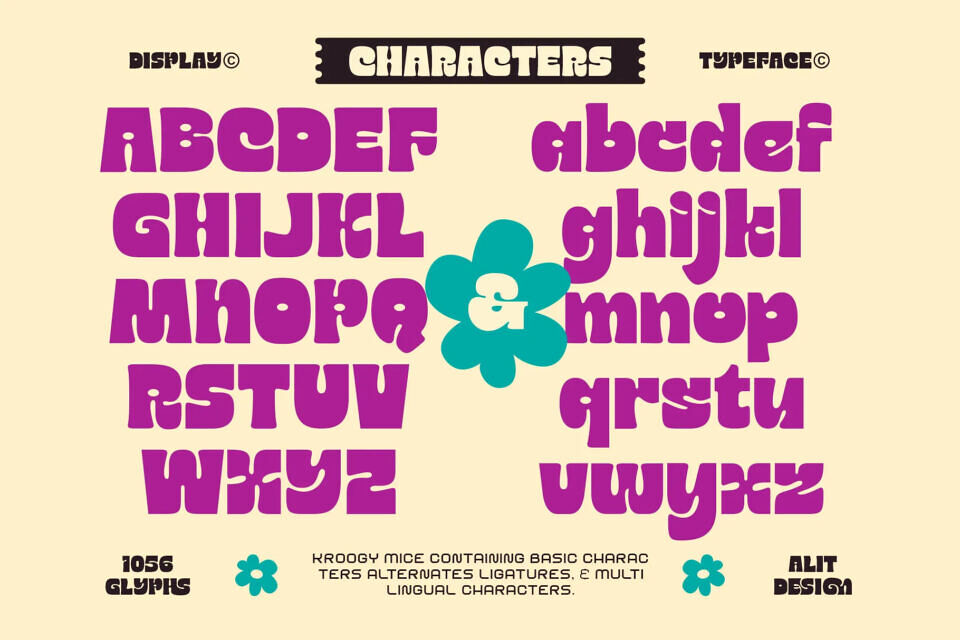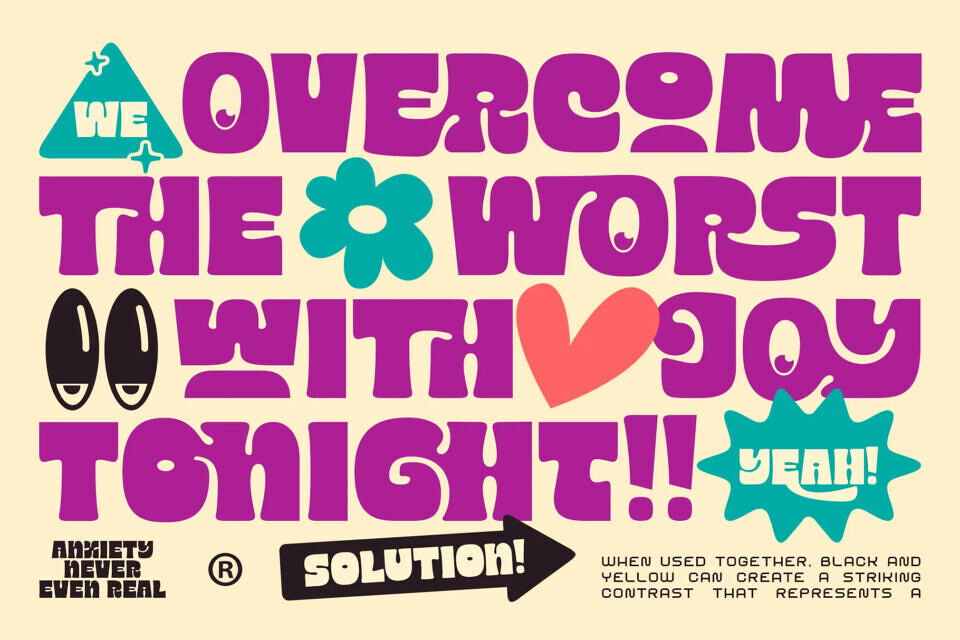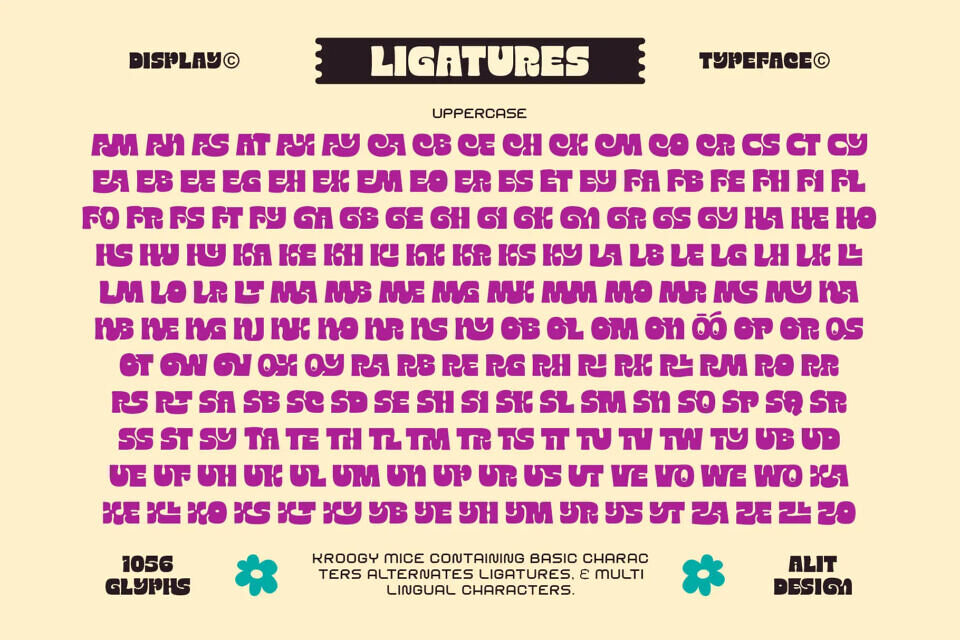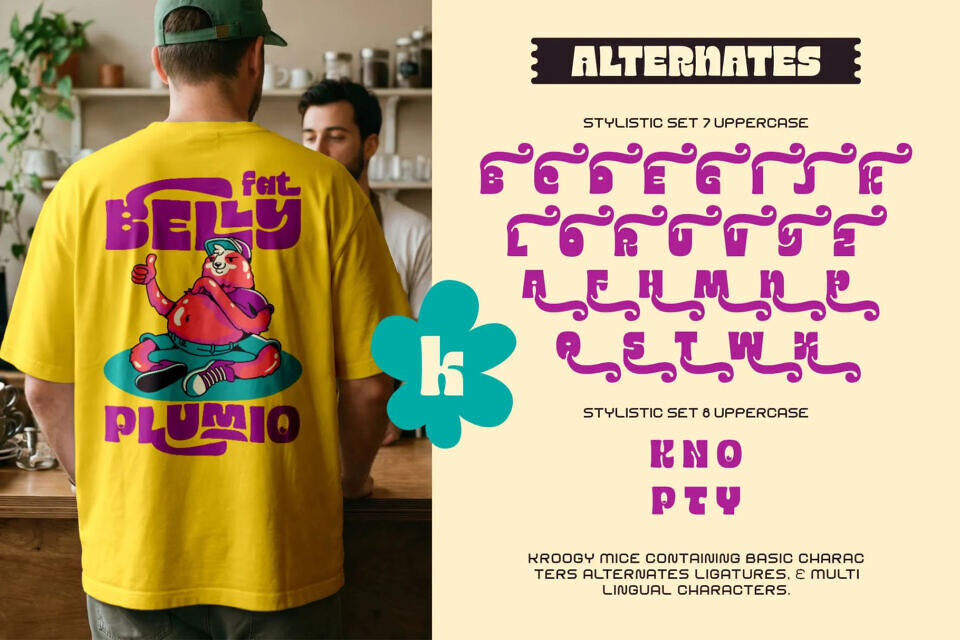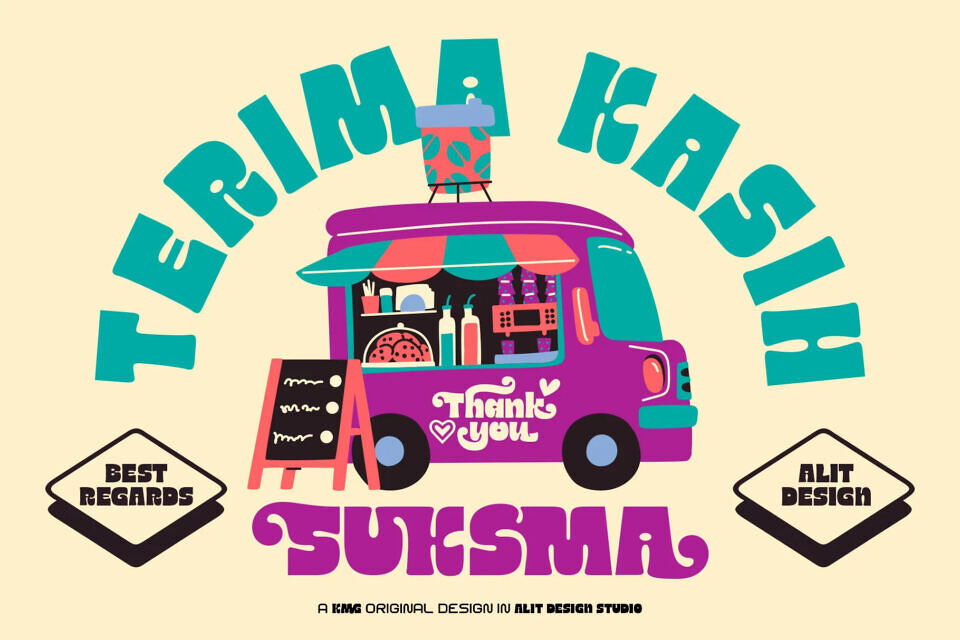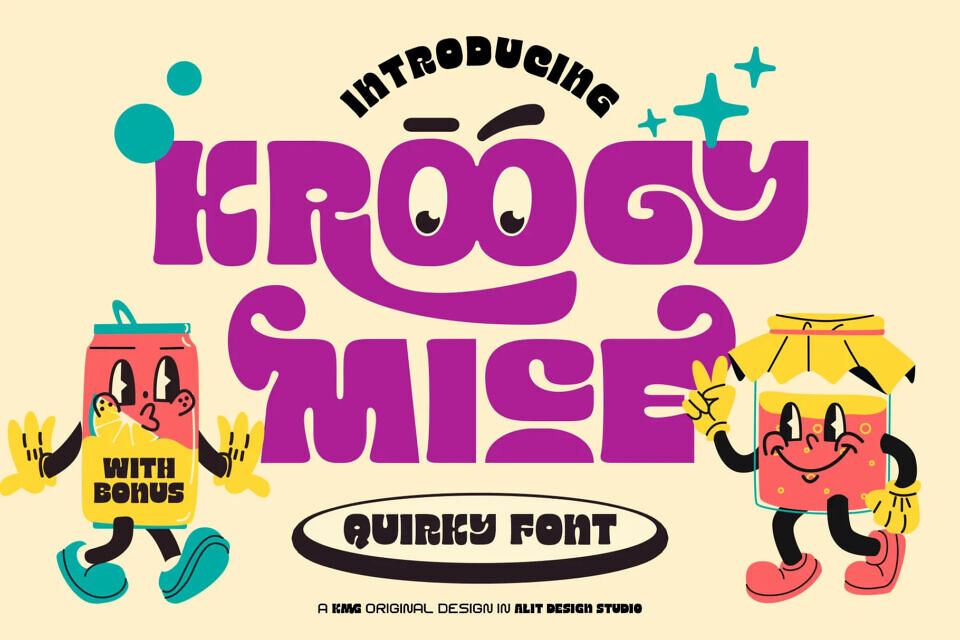
Kroogy Mice Font
Inject a massive dose of personality into your designs with Kroogy Mice, a quirky and expressive typeface that perfectly blends nostalgic “Rubber Hose” cartoon aesthetics with a bold, contemporary street-style twist.
Designed for those who aren’t afraid to stand out, Kroogy Mice is a visual powerhouse. It features exaggerated curves, unique “eye” details within the counters, and a chunky, high-contrast weight that demands attention. Whether you’re designing high-energy streetwear, eye-popping product packaging, or a brand identity that needs to feel alive, this font delivers a heavy-hitting “wow” factor.